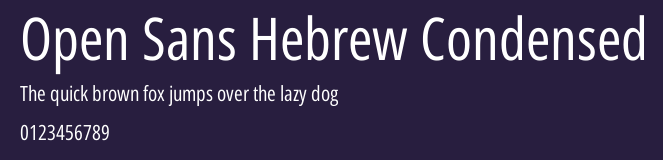
About Open Sans Hebrew Condensed.ttf
Open Sans Hebrew Condensed.ttf is a modern, elegant sans-serif font designed for ultimate readability and visual harmony. Perfect for branding, headlines, web design, and print materials.